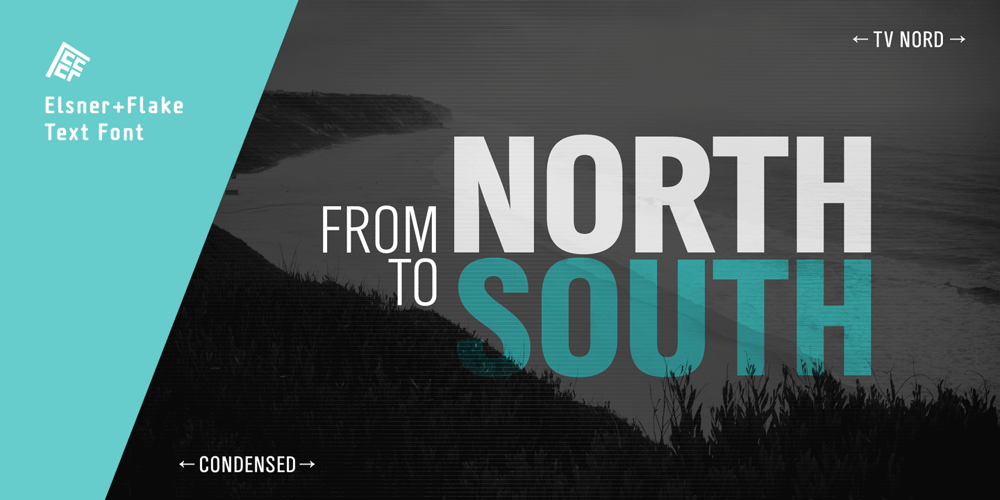
TV Nord Font Family was designed by Günther Flake, Veronika Elsner and published by Elsner+Flake. TV Nord contains 18 styles and family package options. The typeface family TV Nord is based on the corporate typeface NDR Sans which was developed by Elsner+Flake for the Norddeutsche Rundfunk (www.ndr.de) between 1999 and 2001. This new design came into being as part of a complete overhaul of the visual image of the NDR. This became necessary because the NDR, founded in 1954, incorporated the stations of the East German states Mecklenburg-Vorpommern (1992) and Brandenburg (1997) after the re-unification of Germany. The Hamburg advertising agency DMCGroup developed a new and unified image for the NDR which is in existence to this day. The typeface TV Nord relates to the design of the Trade Gothic and similar American sans serif typefaces of the early part of the last century. Its development concerns itself as much with good legibility for print, as it does for the reproduction on TV screens, which among others, is achieved through its high x-height. The logotype for the NDR as well was developed from the capitals of the NDR Sans. In 2014, the TV Nord was revised stylistically and expanded to incorporate all European-Latin languages. As part of this effort, further complementary cuts were added.